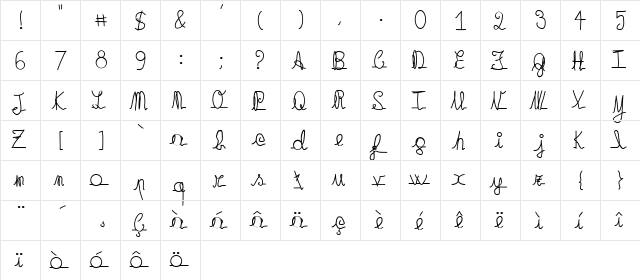
Quattrocchi Medium
Design Context for Quattrocchi Typeface
Quattrocchi is a composed and adaptable typeface that performs quietly and consistently across a wide range of design contexts.